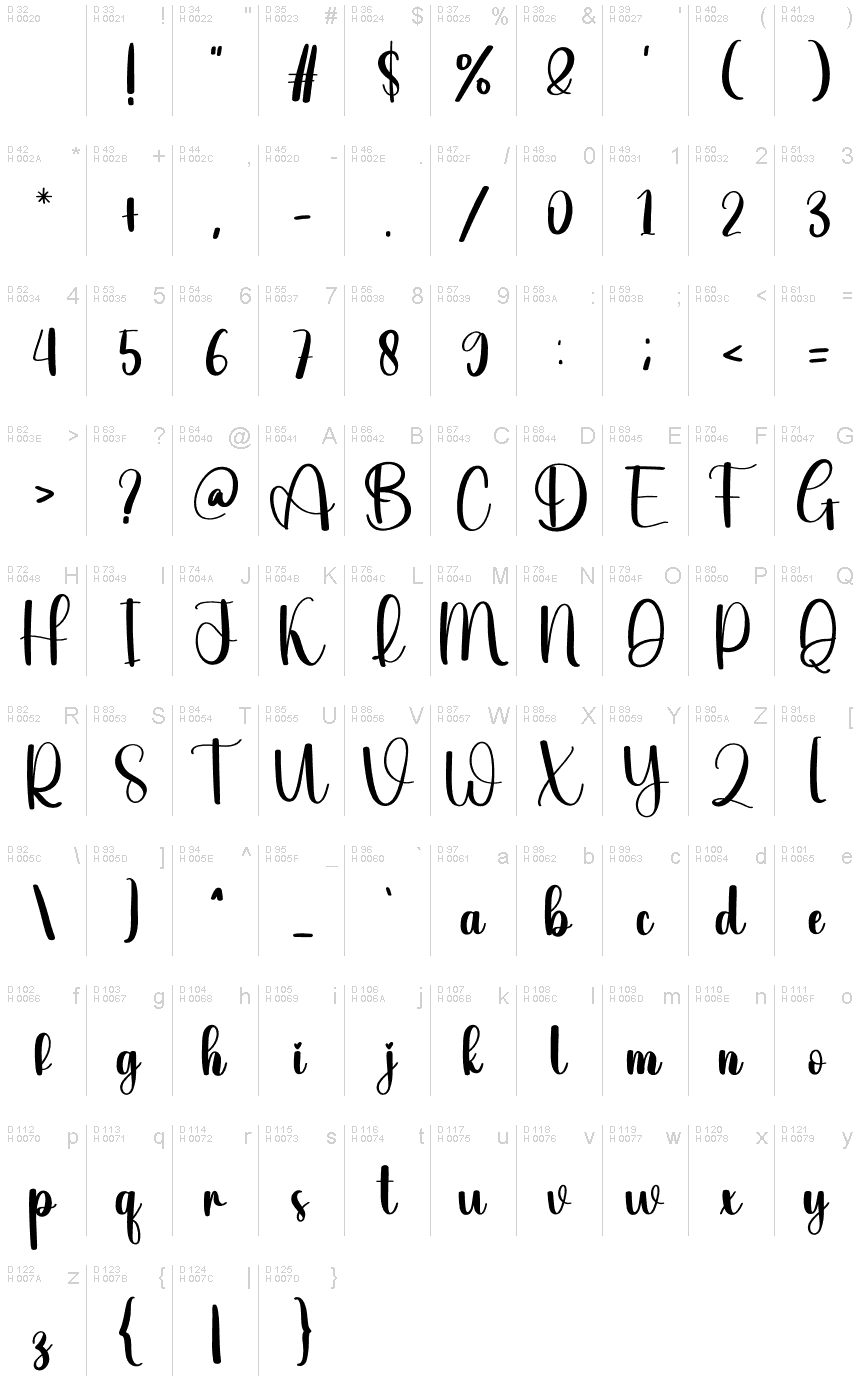
Dragon
Dragon, meticulously crafted by Scratchones, is a semi-light calligraphy font that embodies elegance with a contemporary twist. Its sweeping curves and fine lines suggest a sense of sophistication and grace, making it an exceptional choice for invitations, branding, and artistic projects where a touch of finesse is desired. The fluidity of Dragon's characters provides a dynamic rhythm to text while maintaining readability, ensuring that your message not only captivates but also endures.
Whether employed in digital designs or print media, Dragon offers designers an exquisite typeface option that resonates with creativity and style.